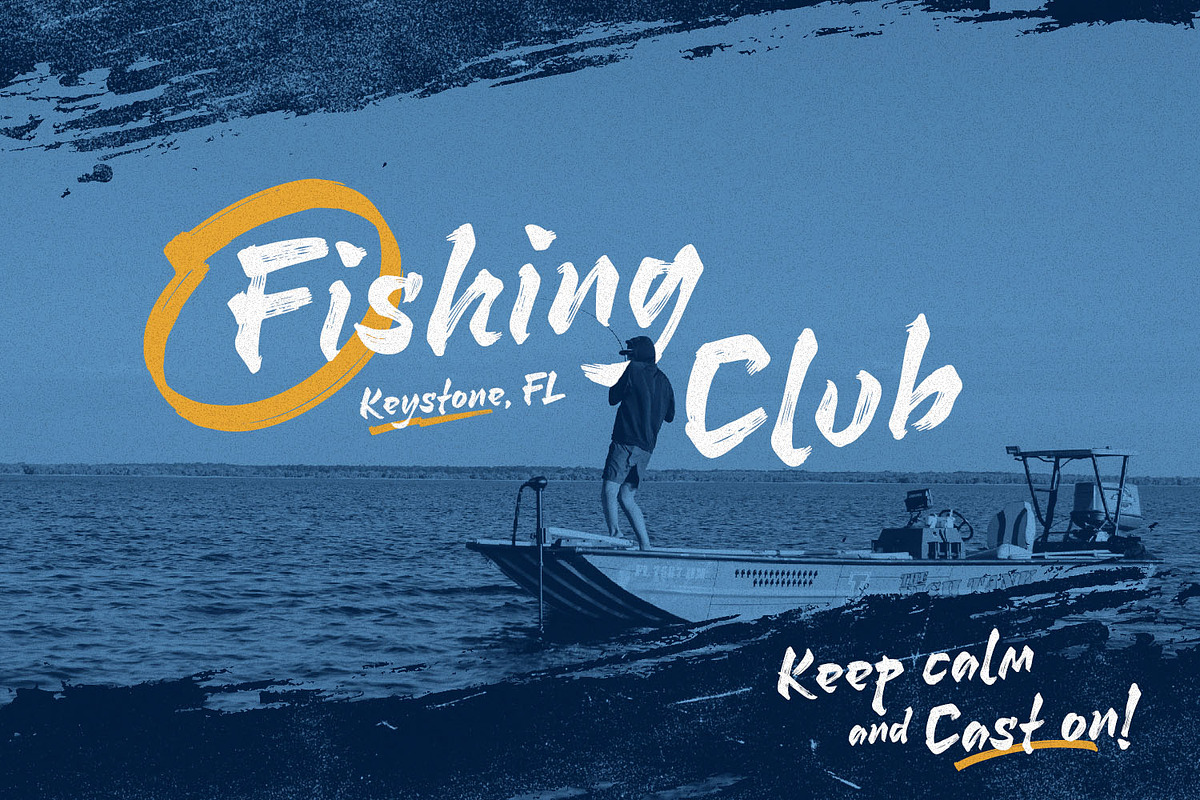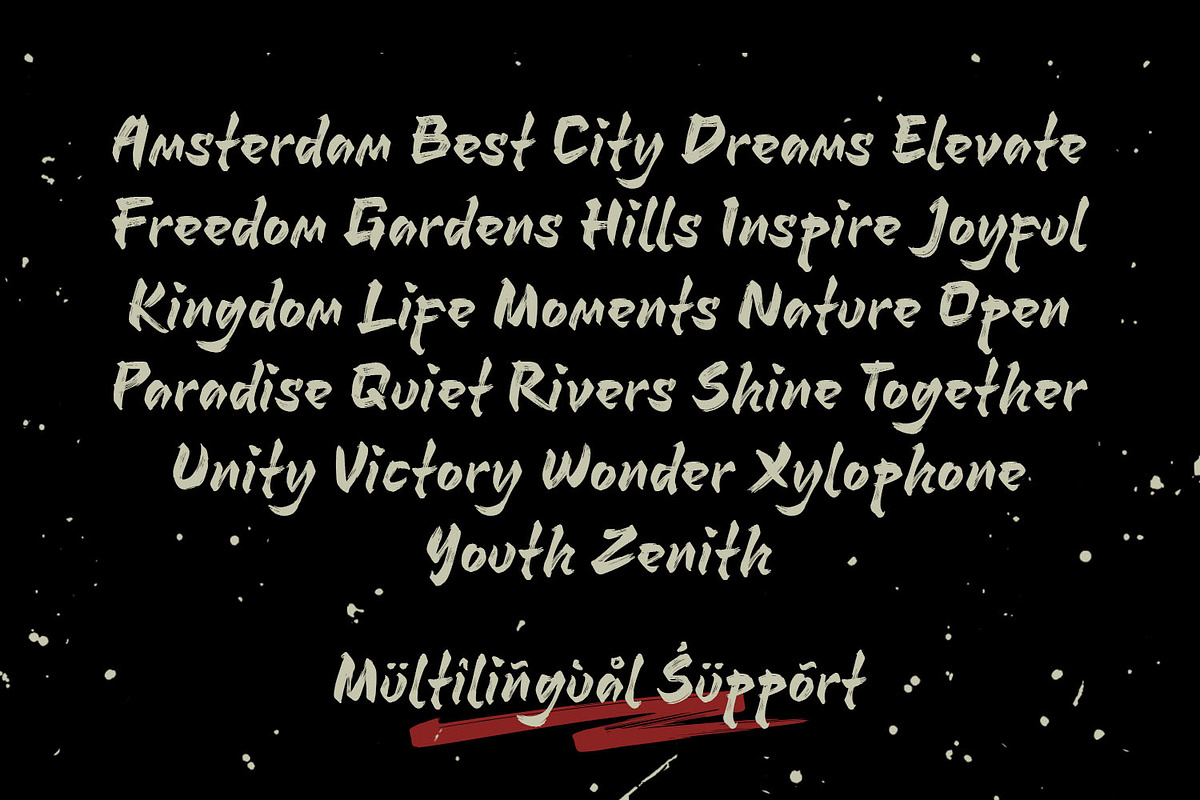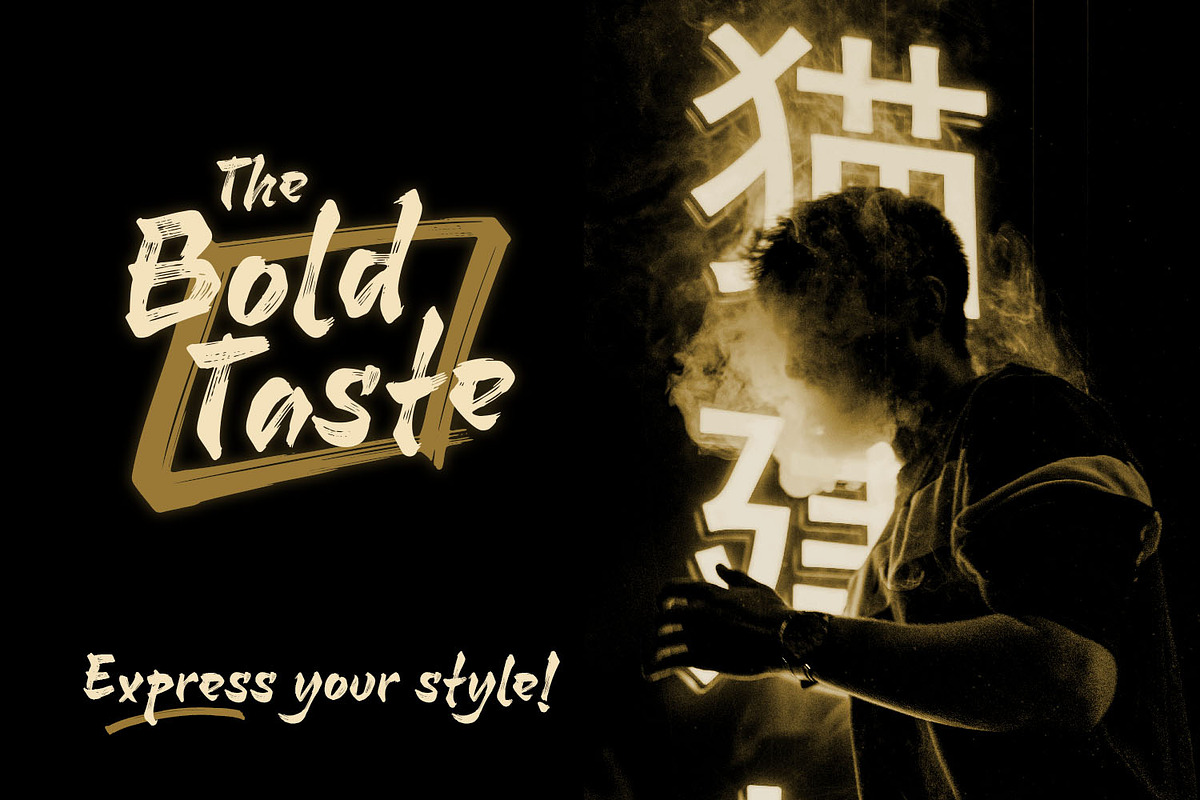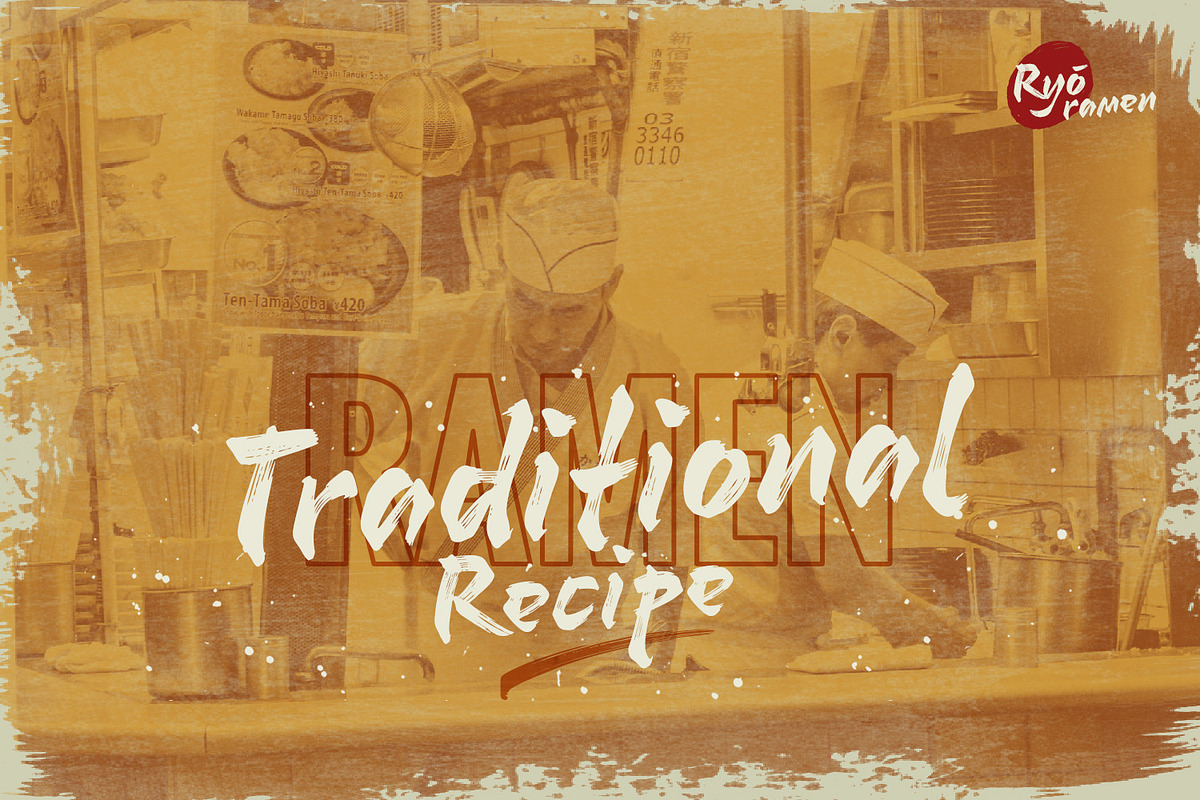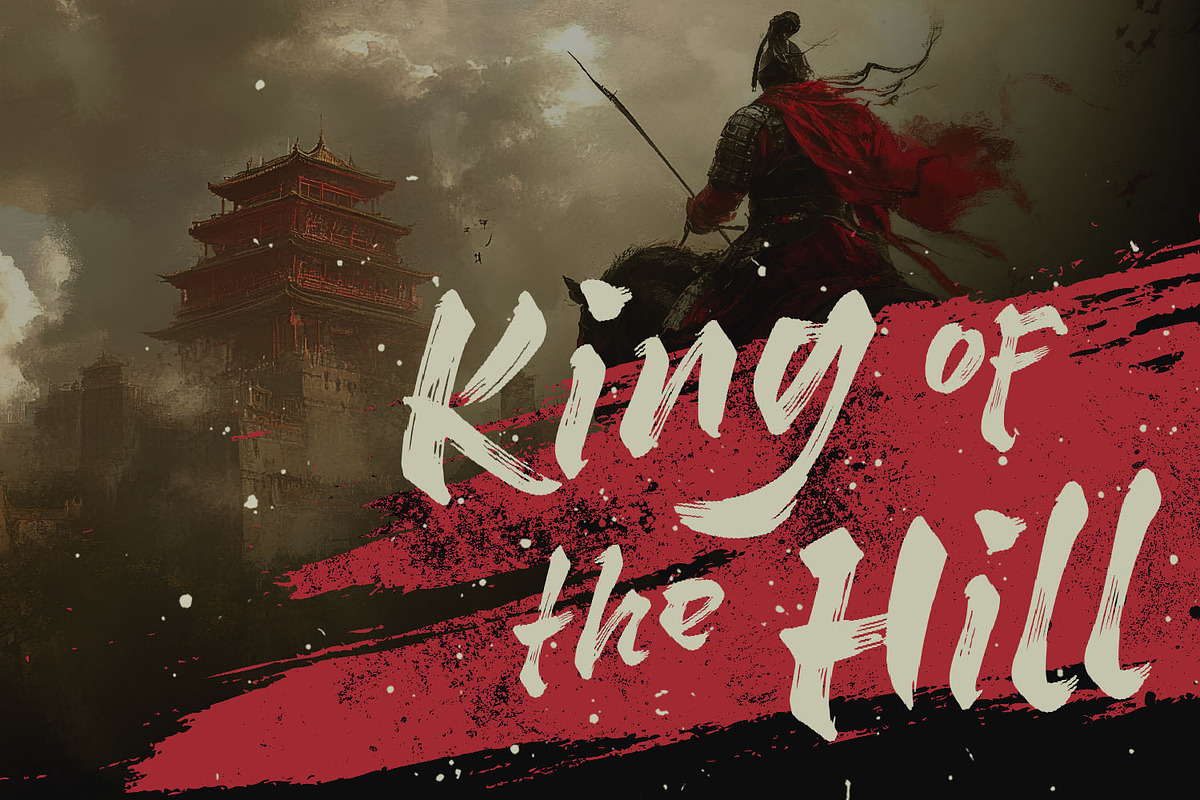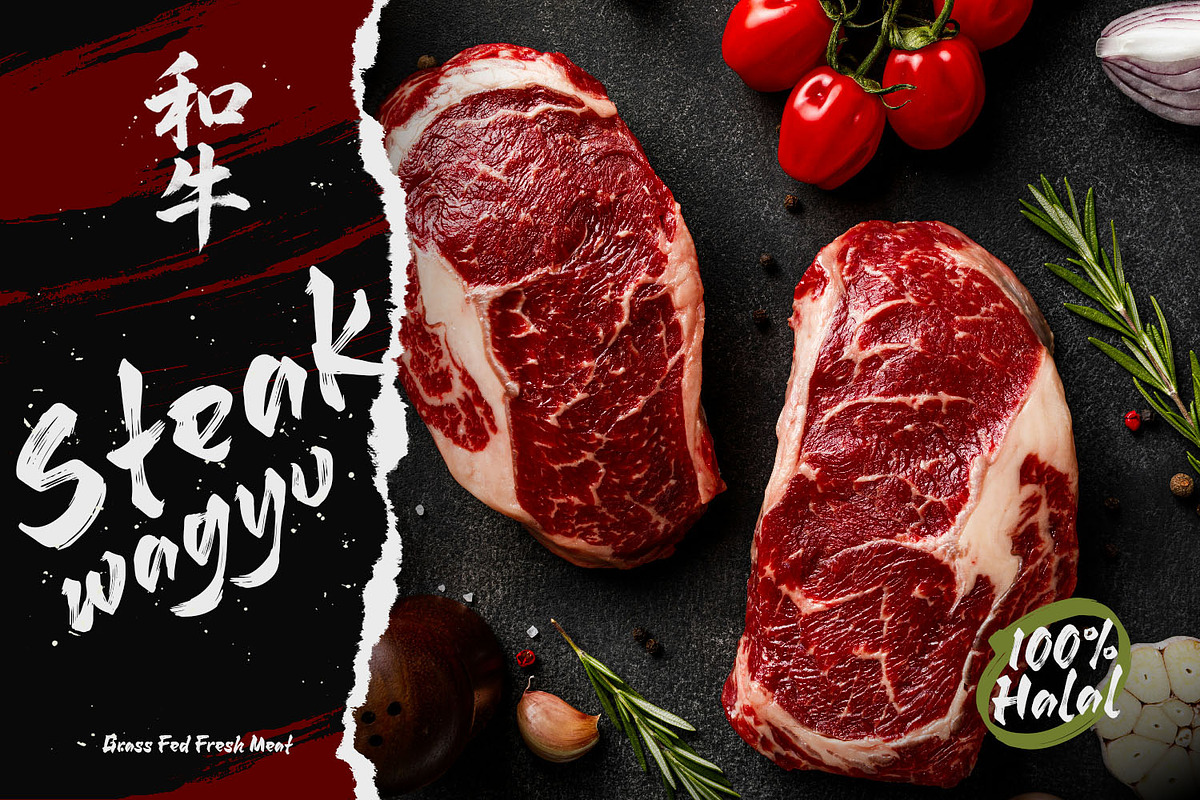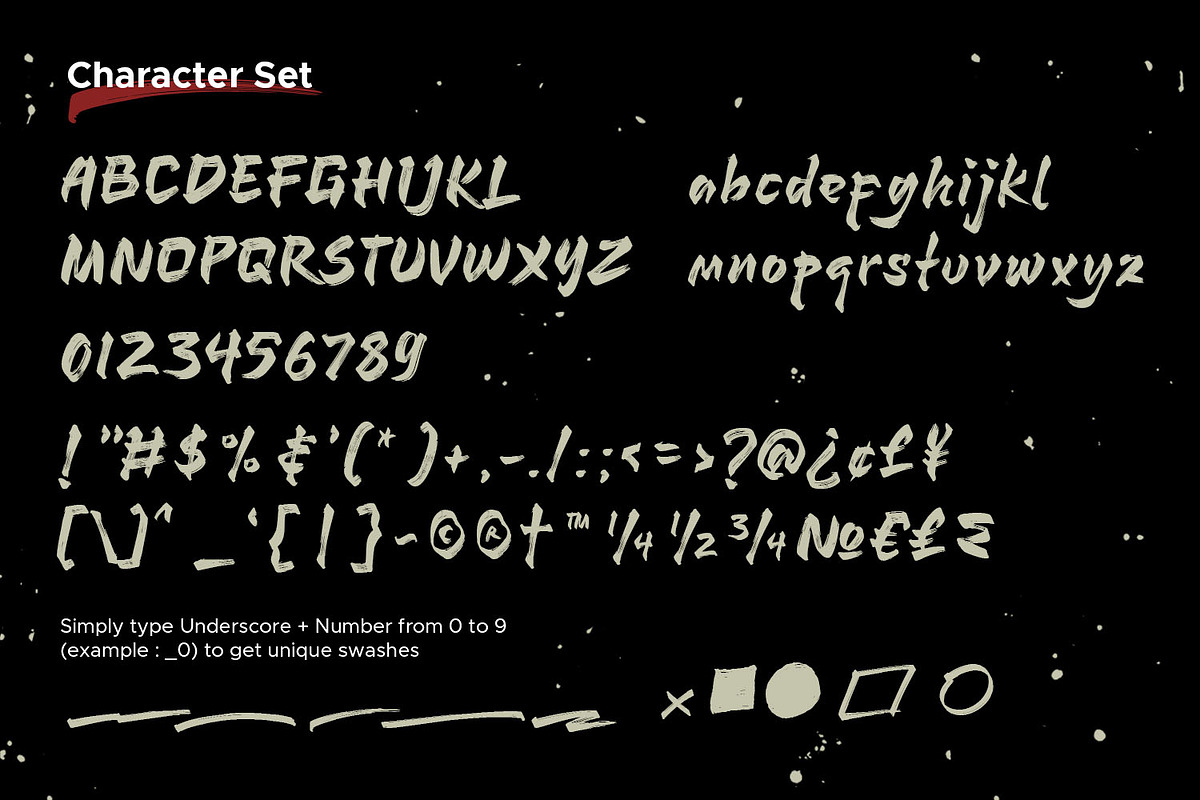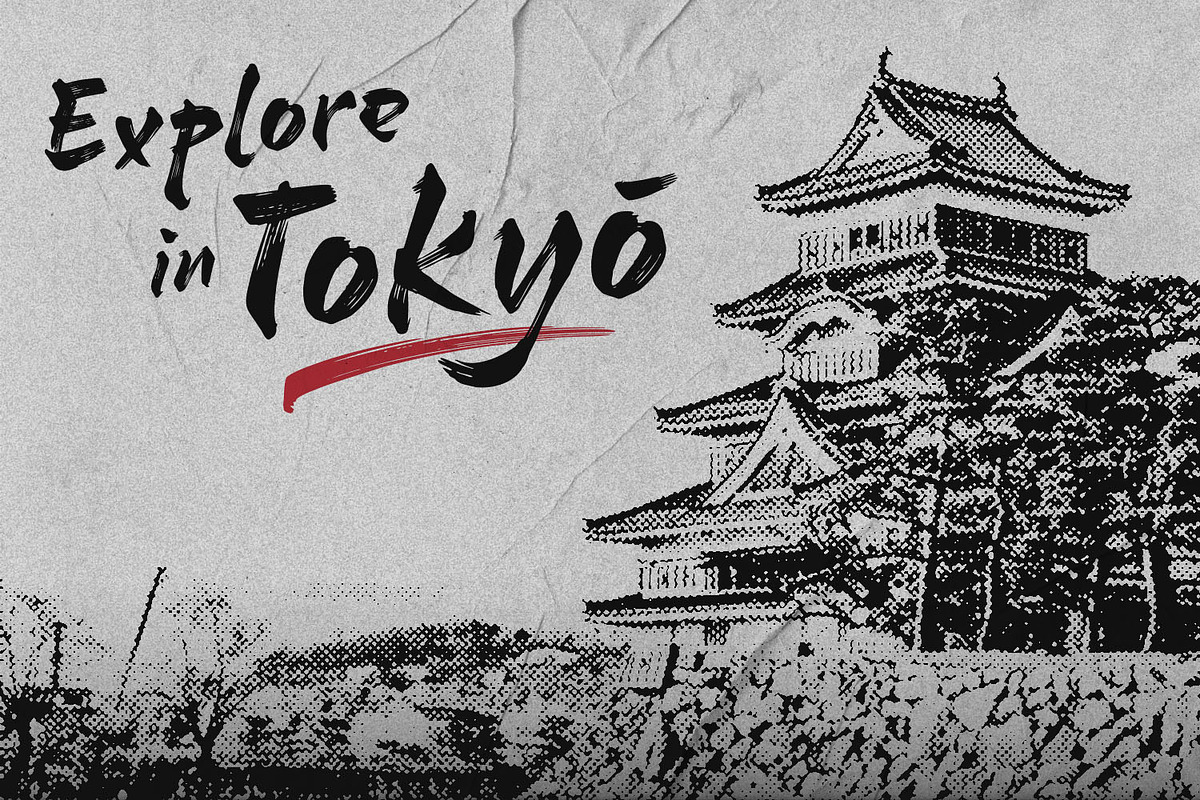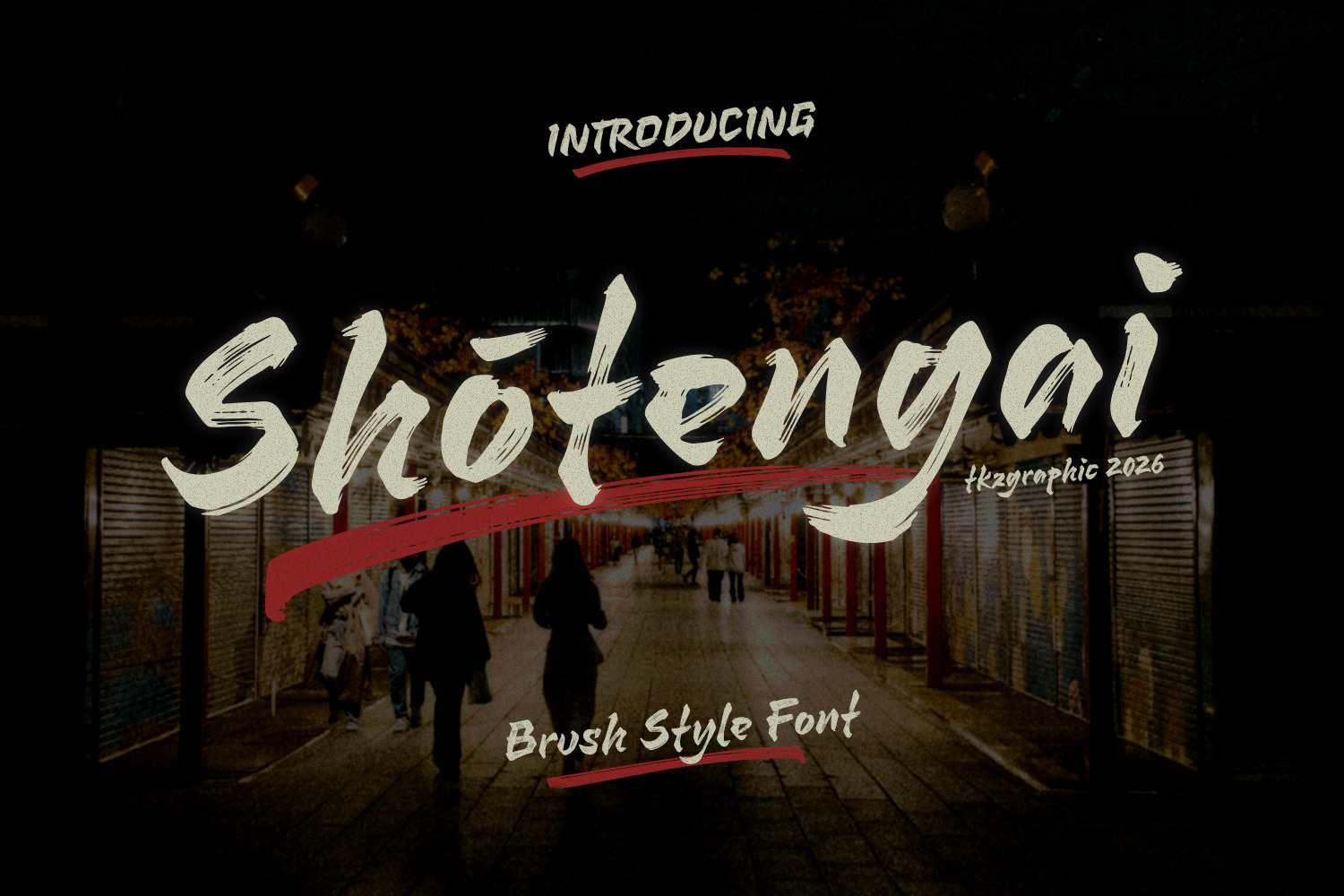
Shotengai - Brush Style Font
Shotengai is a bold and versatile, hand-brush font inspired by the vibes market streets of Japan. It perfectly blends traditional Asian calligraphy with a clean modern brush strokes texture.
Shotengai is designed to be both unique and easy readable, it is the perfect choice for logos, branding, book covers, posters, game titles, movie logos, and food packages.
Opentype Ligatures